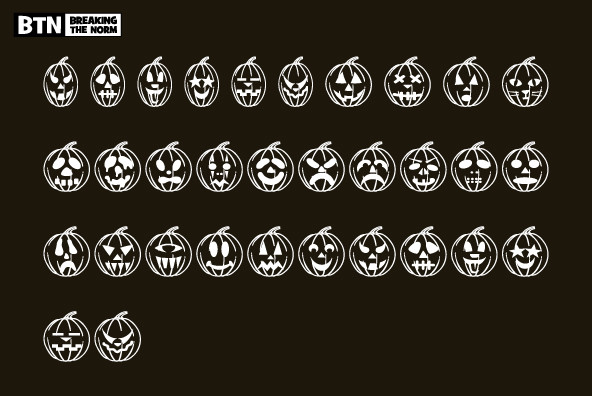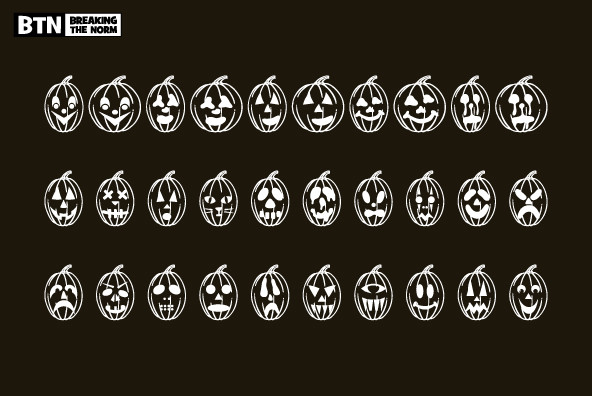
Carver Jack is a dingbat typeface loaded with Wide and Narrow carved Jack O' Lanterns. The perfect typeface for setting up party invitations as well as getting some pumpkin carving ideas.